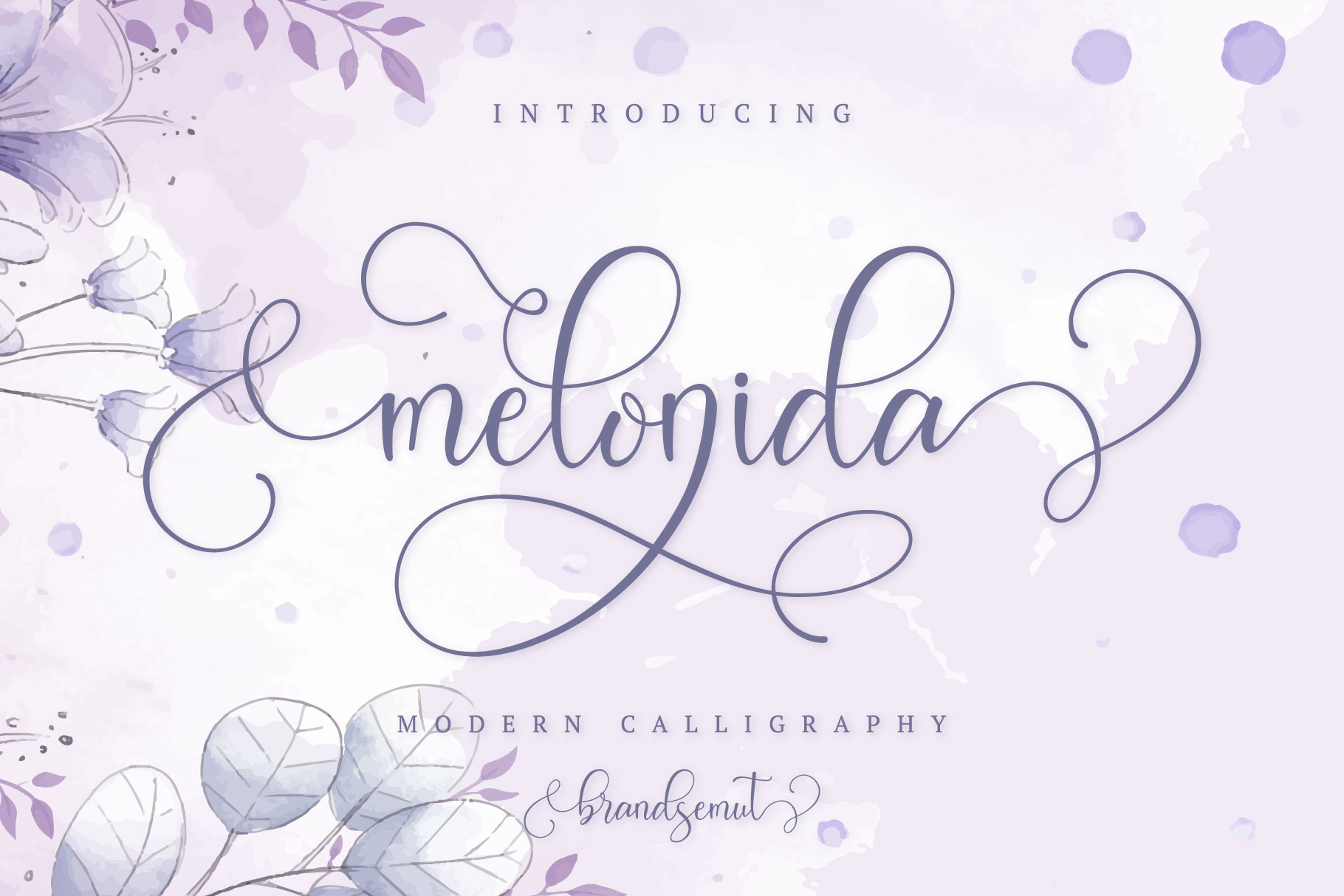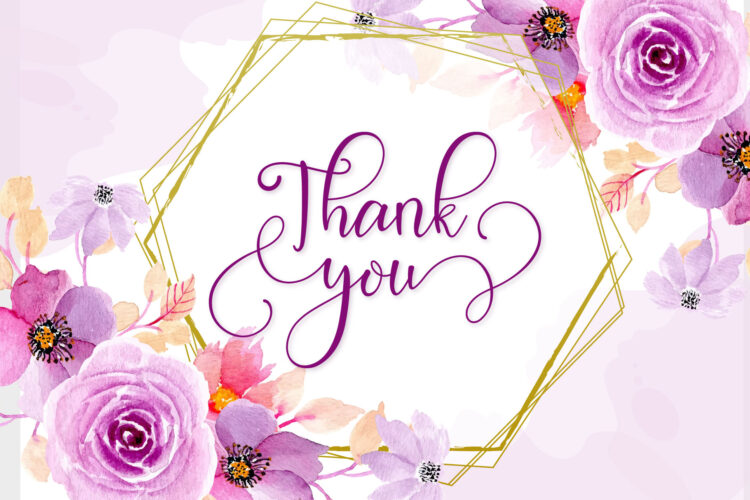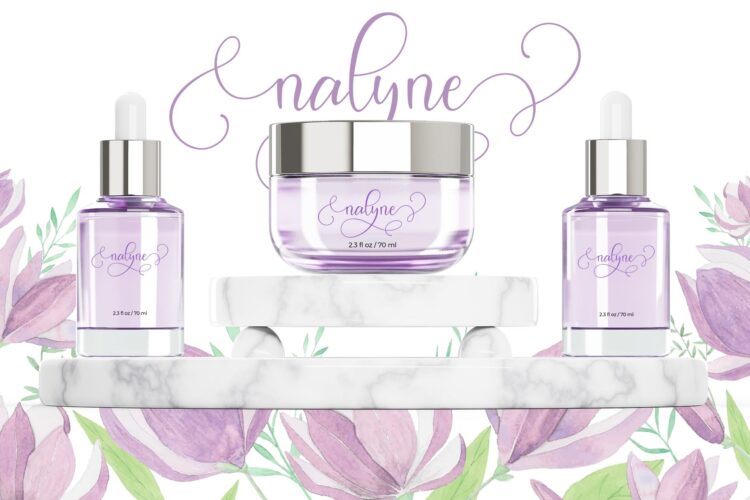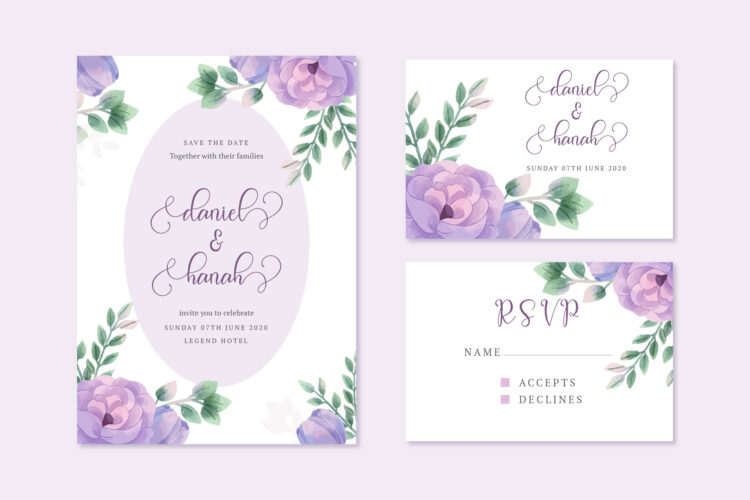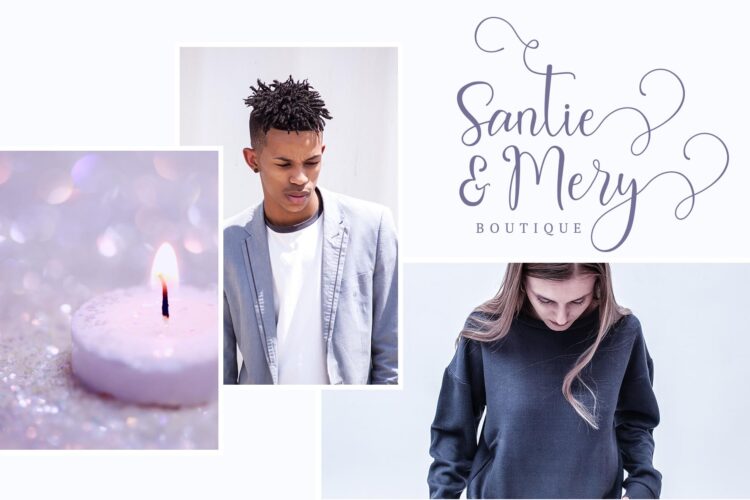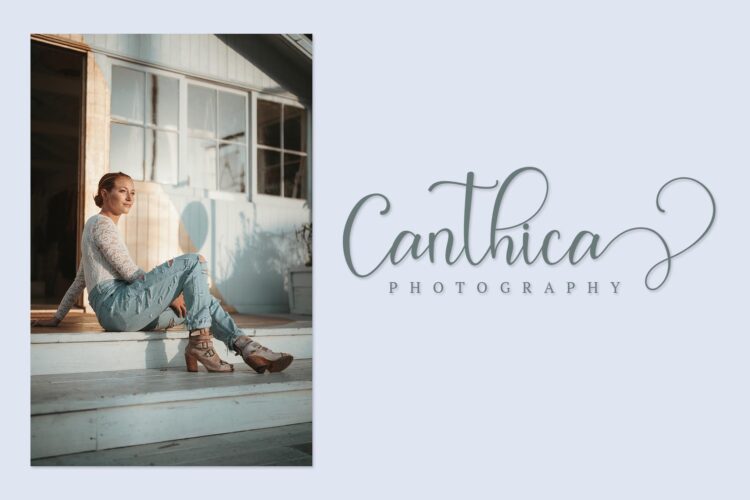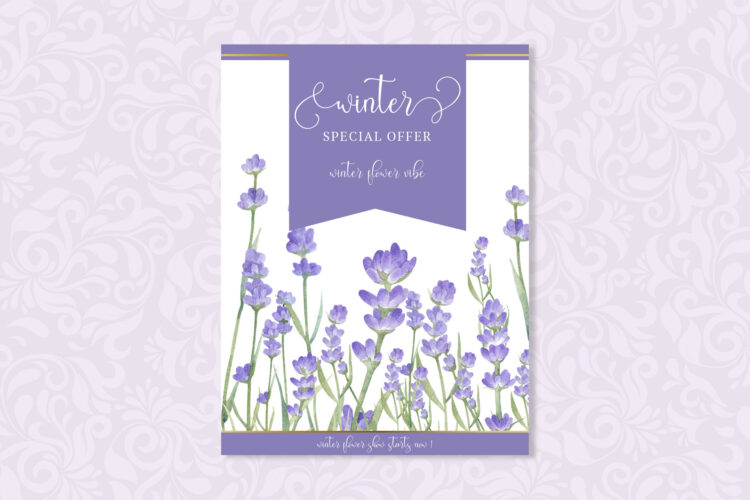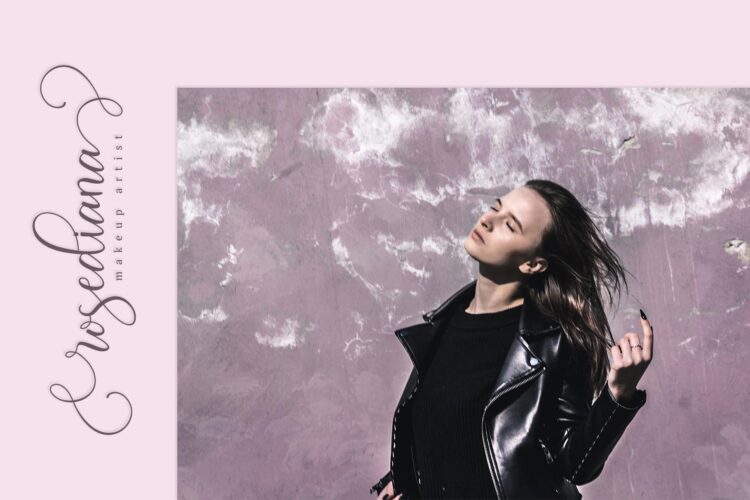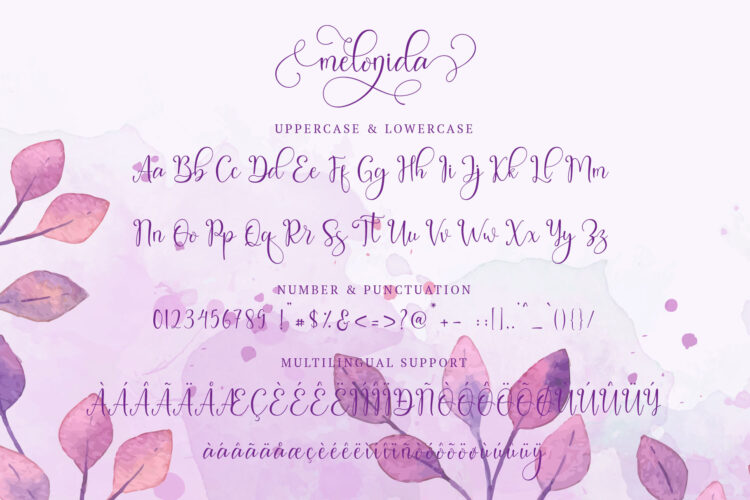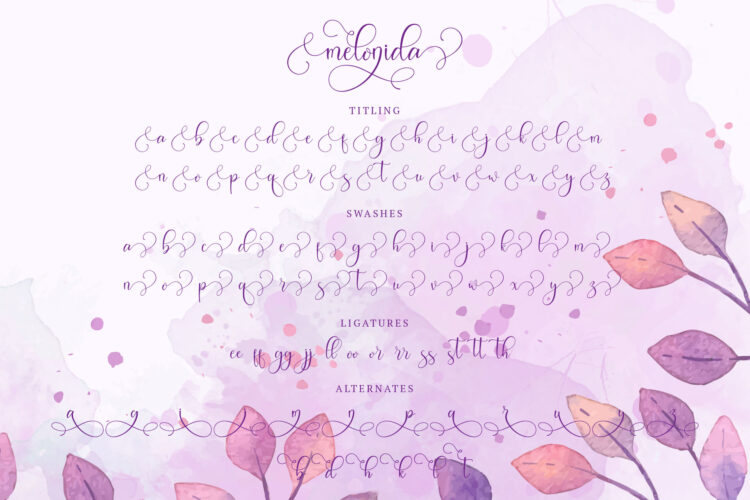
Introducing Melonida || Lovely Script Font !!!
Melonida was built with OpenType features and includes ligatures, numbers, punctuation, alternate, begining and ending swashes and it also multilingual support.
Melonida script fonts let you create wedding invitations, wedding stationery, DIY, wrappers, fashion textile patterns, textures, posters, wedding decorations, gifts, quotes, blogs, wallpapers, stickers, etc.
Melonida – Lovely Script Font